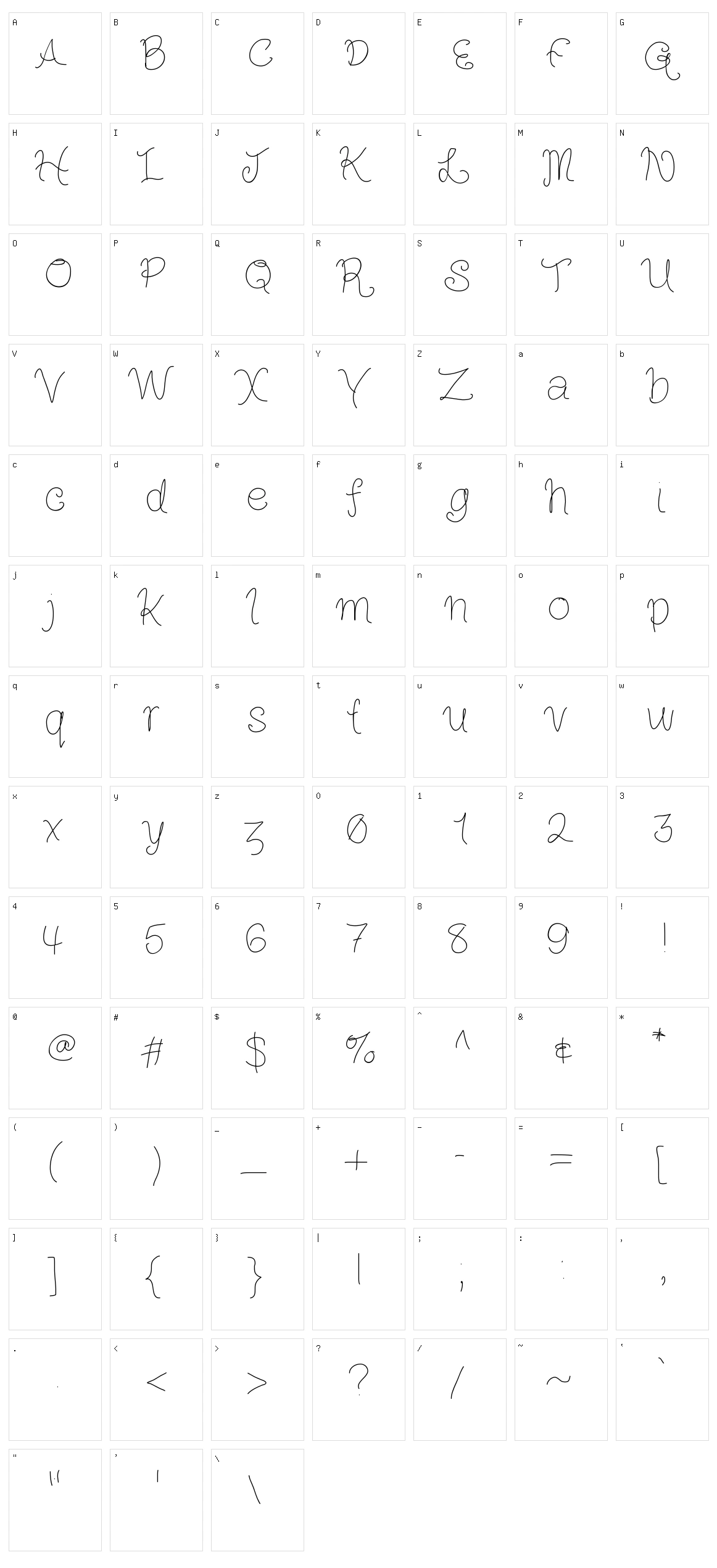
The free font Louises Hand is carefully designed by The Autumn Rabbit, showcasing a thoughtful balance of creativity and usability and falls under the Script font style. When you download the ZIP file, it contains only 18.34 KB of font files, making it lightweight and quick to download. Please review the license details below to understand permitted usage and distribution rights. If license information is not available, we recommend using this font for personal projects only or contacting the author directly for commercial usage permissions.